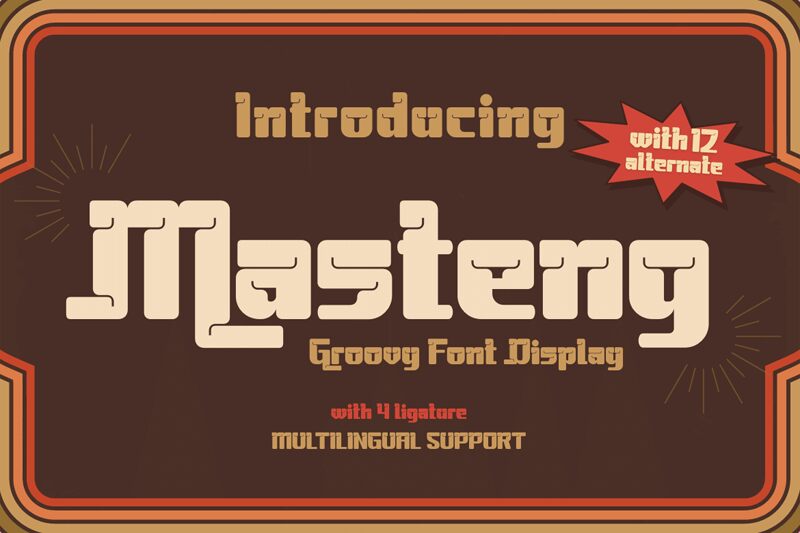
Masteng personal Regular
Masteng, a creation by twinletter, stands out as an audaciously groovy display font that packs a visual punch with its extra-bold weight. The font exudes a playful yet strong character, perfect for designs that aim to leave a lasting impression. Its curvaceous lines and solid form embody a retro vibe with a modern twist, making it an ideal choice for projects that require a touch of nostalgia without sacrificing contemporary flair.
The heavyset nature of Masteng ensures maximum impact in large-scale applications such as headlines, posters, and branding initiatives. The fluidity of its groovy style lends itself to creative endeavors looking to convey energy and dynamism. From eye-catching social media graphics to expressive packaging design, Masteng's distinctive aesthetic is versatile enough to elevate any project seeking boldness and originality.